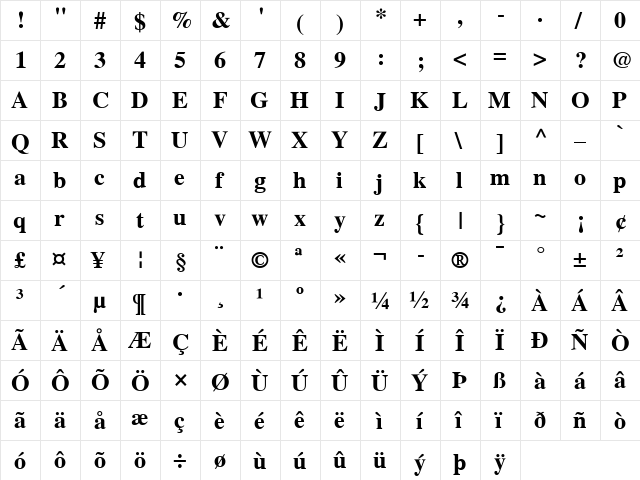
Nimbus Roman No9 L Regular
Design Context for Nimbus Roman No9 L Typeface
Nimbus Roman No9 L is a composed and adaptable typeface that performs quietly and consistently across a wide range of design contexts.